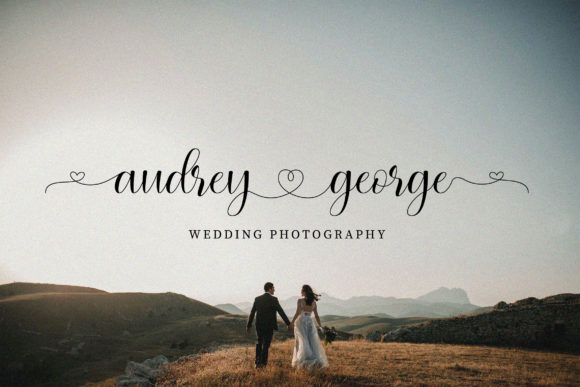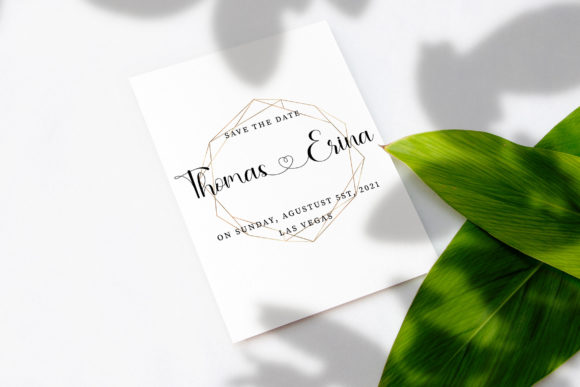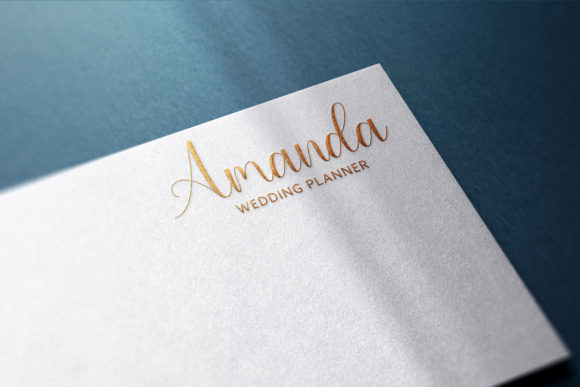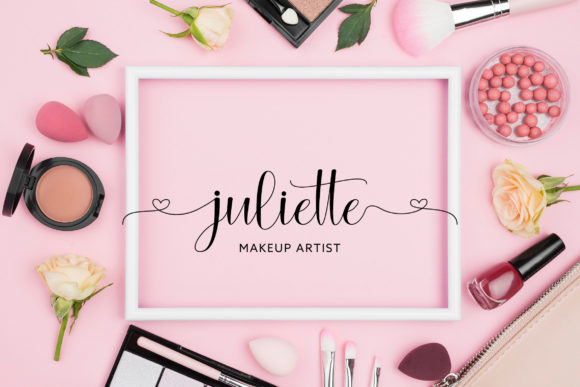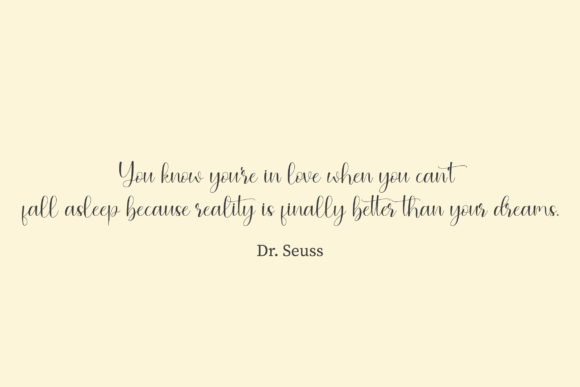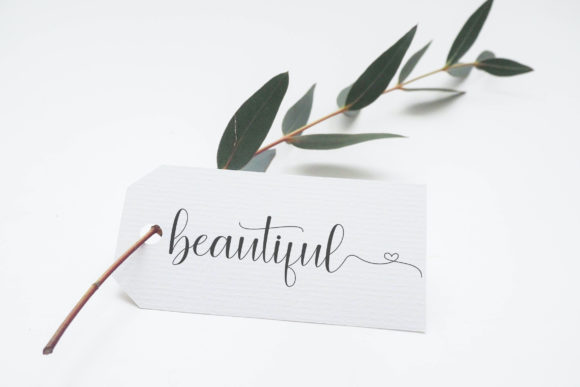
Introducing Angelina Font: Elevate Your Designs with Delicate Style
Are you a designer or crafter looking for a font that can add a touch of elegance and whimsy to your creations? Look no further than Angelina Font. This beautiful script font is perfect for a wide range of projects, from wedding invitations and branding materials to digital art and craft projects. In this article, we’ll take a closer look at the features and benefits of Angelina Font, and explore how it can elevate your designs.
A Delicate, Stylish, and Whimsical Script Font
Angelina Font is a delicate, stylish, and whimsical script font that is sure to capture the attention of your audience. Its elegant and flowing lines make it perfect for creating beautiful, eye-catching designs that are both sophisticated and playful. Whether you’re looking to create a romantic and feminine design or a more modern and trendy one, Angelina Font is an excellent choice.
A Versatile Font for Any Project
One of the best things about Angelina Font is its versatility. No matter the topic or theme of your project, this font will be an incredibly valuable asset to your font library. From wedding invitations and event planners to fashion brands and beauty companies, Angelina Font can be used to create stunning designs that are sure to impress.
Key Features of Angelina Font
- Delicate and whimsical script font: Angelina Font features elegant and flowing lines that are perfect for creating beautiful, eye-catching designs.
- Versatile: Suitable for a wide range of projects, from wedding invitations and branding materials to digital art and craft projects.
- Elegant and sophisticated: Perfect for creating romantic and feminine designs or modern and trendy ones.
- Use it as a headline font: Angelina Font is perfect for headlines and titles, where its elegant and whimsical lines can really shine.
- Add swashes and glyphs: Use the font’s built-in swashes and glyphs to add a personal touch to your designs.
Angelina Font is a beautiful and versatile script font that is perfect for designers and crafters looking to add a touch of elegance and whimsy to their creations. With its delicate and stylish lines, PUA encoding, and versatility, it’s an excellent choice for a wide range of projects. Whether you’re looking to create romantic and feminine designs or modern and trendy ones, Angelina Font is sure to elevate your designs and help you stand out from the crowd.